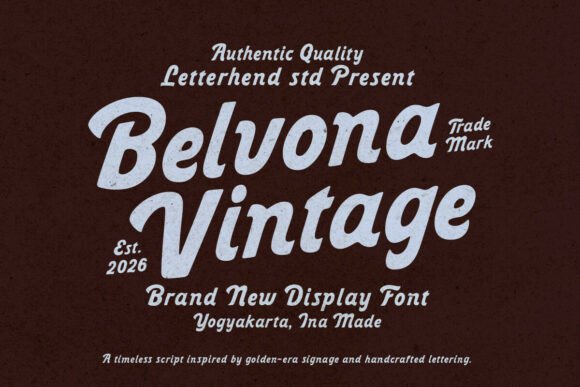
The Charm of Belvona Vintage Font: A Designer’s Delight
I’ll never forget the struggle I faced while working on a retro-themed café branding project. My client wanted a font that would transport their customers back to the golden era of classic American diners. I scoured the internet, tried countless fonts, but nothing seemed to capture that perfect blend of vintage charm and sophistication. That’s when I stumbled upon Belvona Vintage Font. It was love at first sight! ✨
• ✨ Smooth, golden-era charm that’s perfect for retro-themed projects
• ✅ Warm, slow-roasted attitude that adds a touch of sophistication
• ✅ Highly versatile and works well for various design applications, from steakhouses to heritage logos
• ✅ Beautifully crafted with attention to detail, making it a joy to work with
While Belvona Vintage Font is an excellent choice, there are a few things to keep in mind: ⚠️
• 🤔 Some users might find the font a bit too condensed for certain design applications
• ⚠️ Limited availability of language support, which might be a concern for projects requiring multilingual support
3. Experiment with OpenType features, such as ligatures and stylistic alternates, to add visual interest
3. Explore the font’s glyphs and OpenType features, such as swashes and alternates, to add creative flair
The Backstory of Belvona Vintage Font
Belvona Vintage Font was inspired by classic signage and old-school storefront lettering. The designer aimed to capture the essence of a bygone era, when typography was a true art form. The result is a font that exudes warmth, sophistication, and a touch of nostalgia.
Q: What is the inspiration behind Belvona Vintage Font?
A: Belvona Vintage Font was inspired by classic signage and old-school storefront lettering, aiming to capture the charm of a bygone era.
Q: Does Belvona Vintage Font support OpenType features?
A: Yes, Belvona Vintage Font supports OpenType features, including ligatures, stylistic alternates, and glyphs.